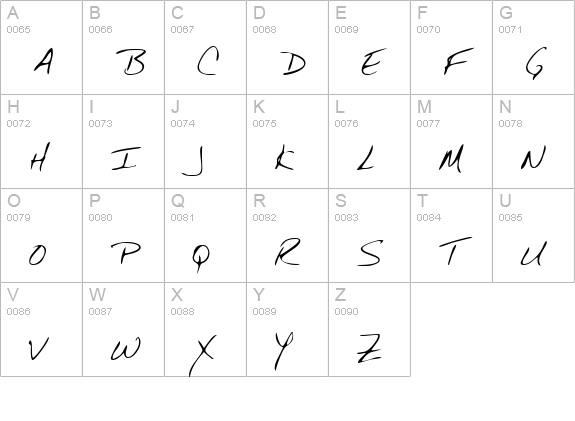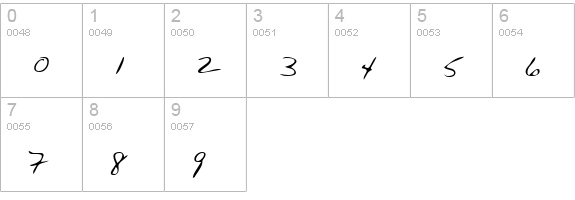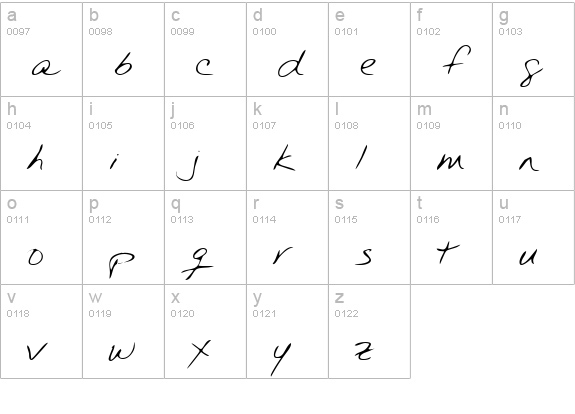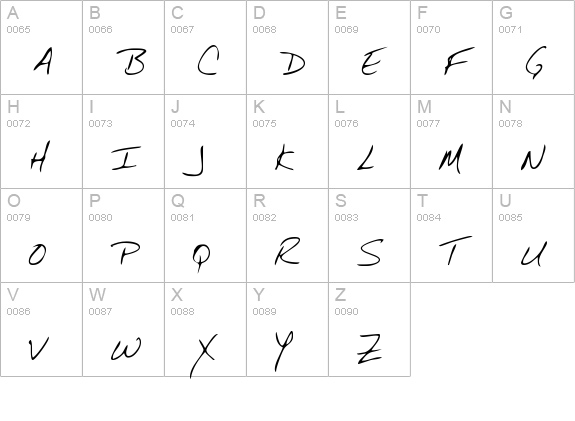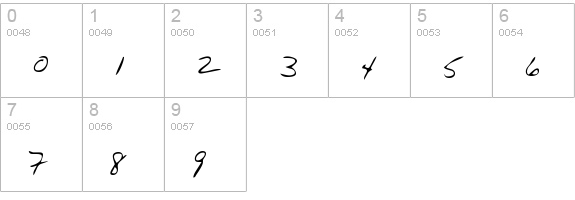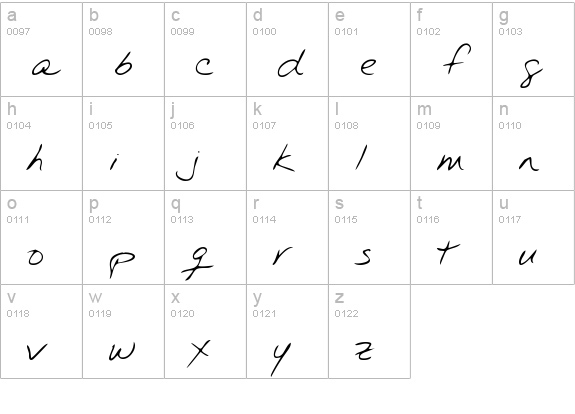
RamseysHand Regular Font Details
RamseysHand Regular is the standard, neutral variant in the RamseysHand typeface family \xE2\x80\x94 well suited to general body text, paragraphs, and standard typographic work.
RamseysHand Regular font is a beautifully handcrafted script typeface that exudes elegance and charm. Its flowing strokes and delicate curves give it a unique and personal touch, making it perfect for adding a touch of sophistication to any design project. The font features a balanced combination of thick and thin lines, creating a harmonious and visually appealing appearance. With its versatile nature, RamseysHand Regular font can be used for a wide range of design purposes, such as branding, logos, invitations, packaging, and more. Its legibility ensures that your message will be conveyed clearly and effectively, while its stylish design adds a touch of personality and creativity. What's even better is that RamseysHand Regular font is available for free download at FontsMarket.com. This means that you can use this stunning font at no cost, making it an excellent choice for both personal and commercial projects. Whether you're a professional designer looking to enhance your work or an individual seeking to add a touch of elegance to your personal projects, RamseysHand Regular font is the perfect solution. So why wait? Download RamseysHand Regular font for free at FontsMarket.com and bring your designs to life with its unique and captivating style. Let your creativity flow and make a lasting impression with this freely available font.